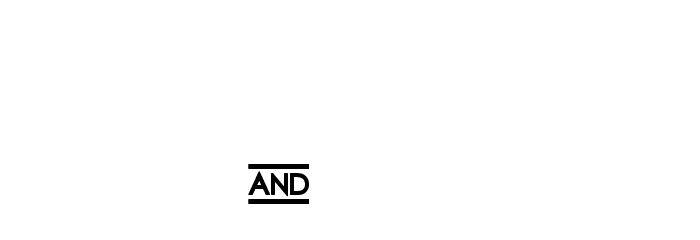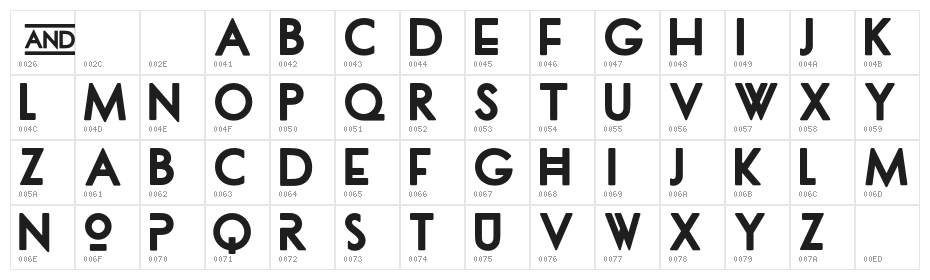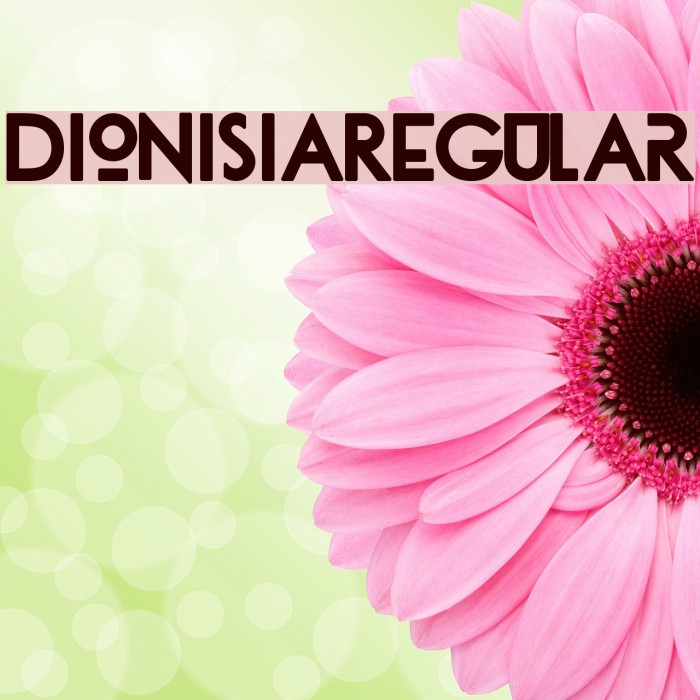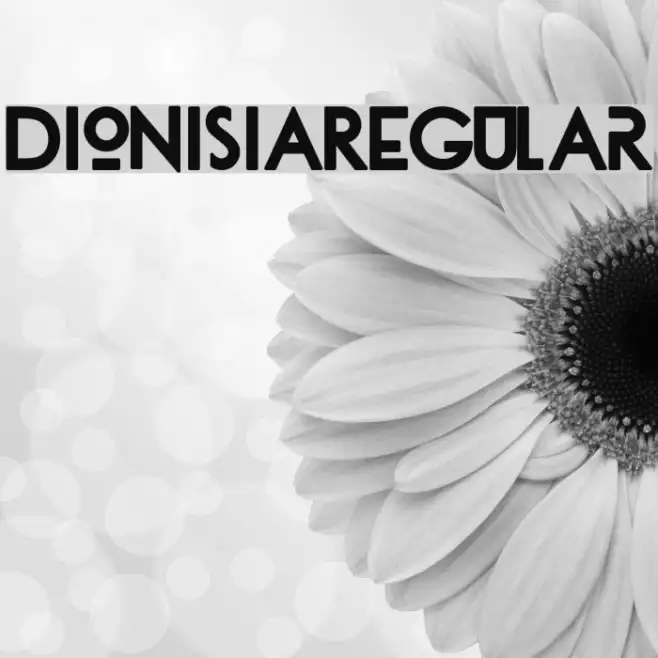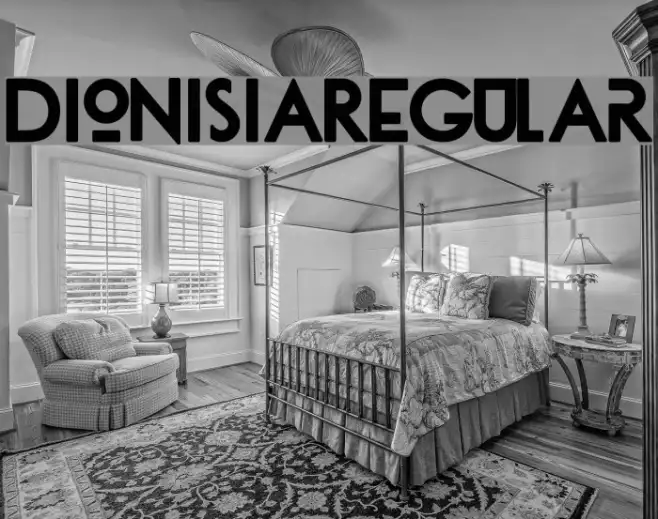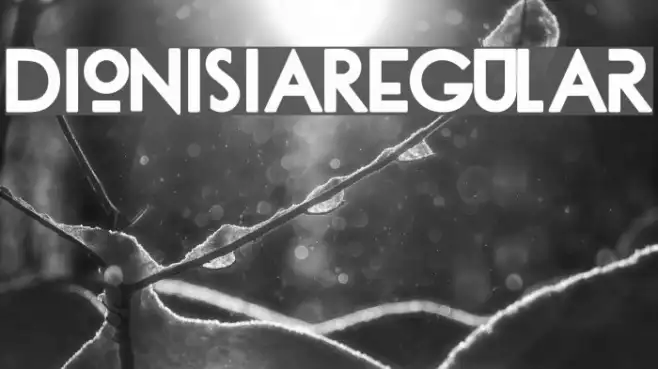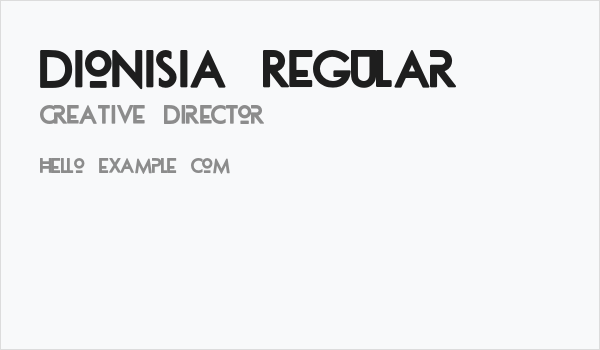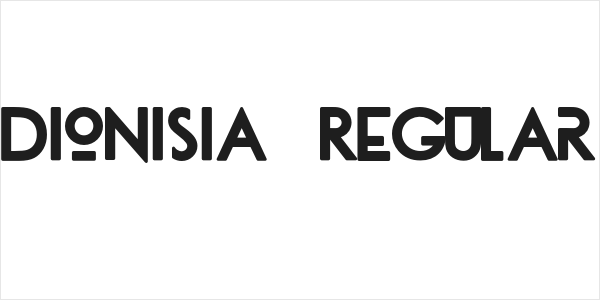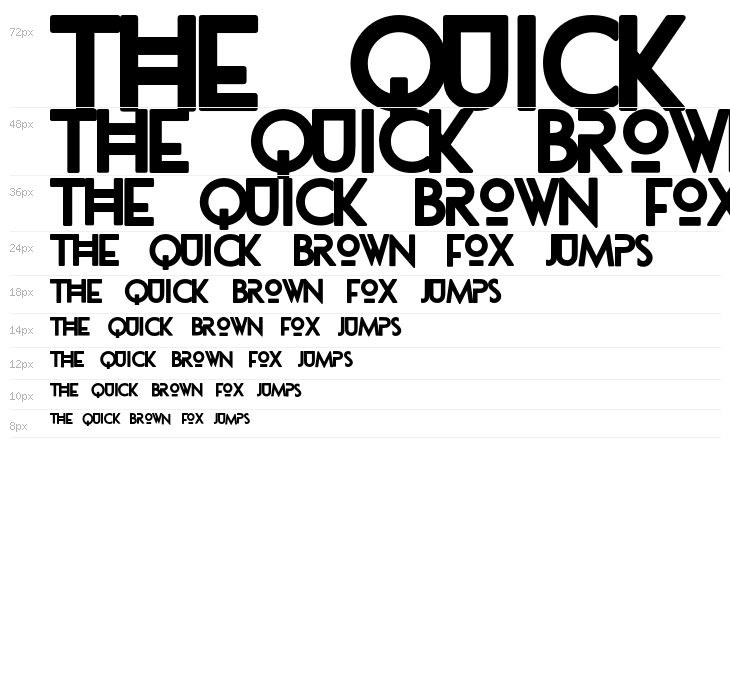
dionisia-Regular Font
dionisia-Regular Description
This font features a bold and geometric design with a strong emphasis on horizontal and vertical lines. The characters are constructed with a modernist approach, showcasing a unique interplay between solid forms and negative space. The uppercase letters exhibit a uniform height, while the lowercase letters maintain a consistent style, contributing to a cohesive visual identity. The font's distinct style is characterized by its boldness and clarity, making it suitable for impactful headlines and branding. Its geometric nature gives it a contemporary feel, while the clean lines ensure readability.
Fonts by Tano Veron
| Proposed Projects | Ideal for branding, advertising, posters, and any project requiring a modern and impactful typeface. |